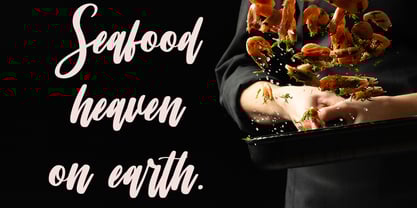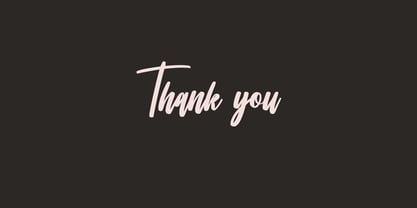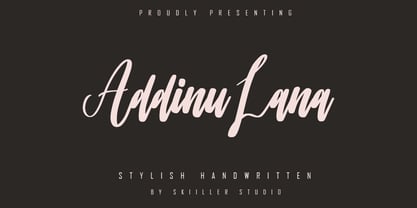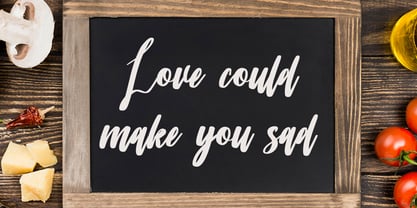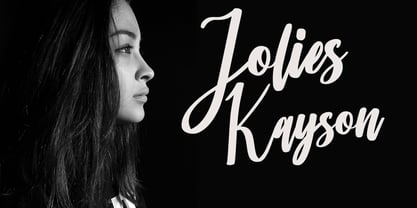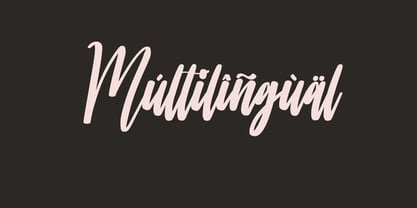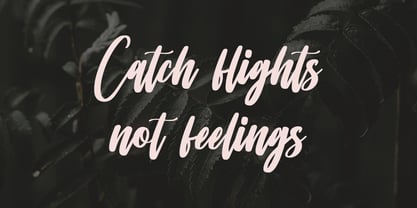
Addinu Lana
by Skiiller Studio
The Addinu Lana Font Family was designed by Irfan Mahmudin and published by Skiiller Studio. Addinu Lana contains 1 styles.
Addinu Lana is a stylish handwritten script font that seamlessly combines elegance, softness, and modern calligraphy into a stunning design. Featuring smooth curves, graceful strokes, and flowing letter connections, this font is ideal for projects that require a romantic, feminine, or luxurious aesthetic. Perfect for branding, wedding invitations, logos, social media posts, product packaging, and expressive quotes, Addinu Lana imparts a refined handwritten charm that enhances any creative endeavor with sophistication and warmth. Its versatile style and unique character make it a standout choice for designers seeking to add a personal touch to their work.
Designers: Irfan Mahmudin
Publisher: Skiiller Studio
Foundry: Skiiller Studio
Design Owner: Skiiller Studio